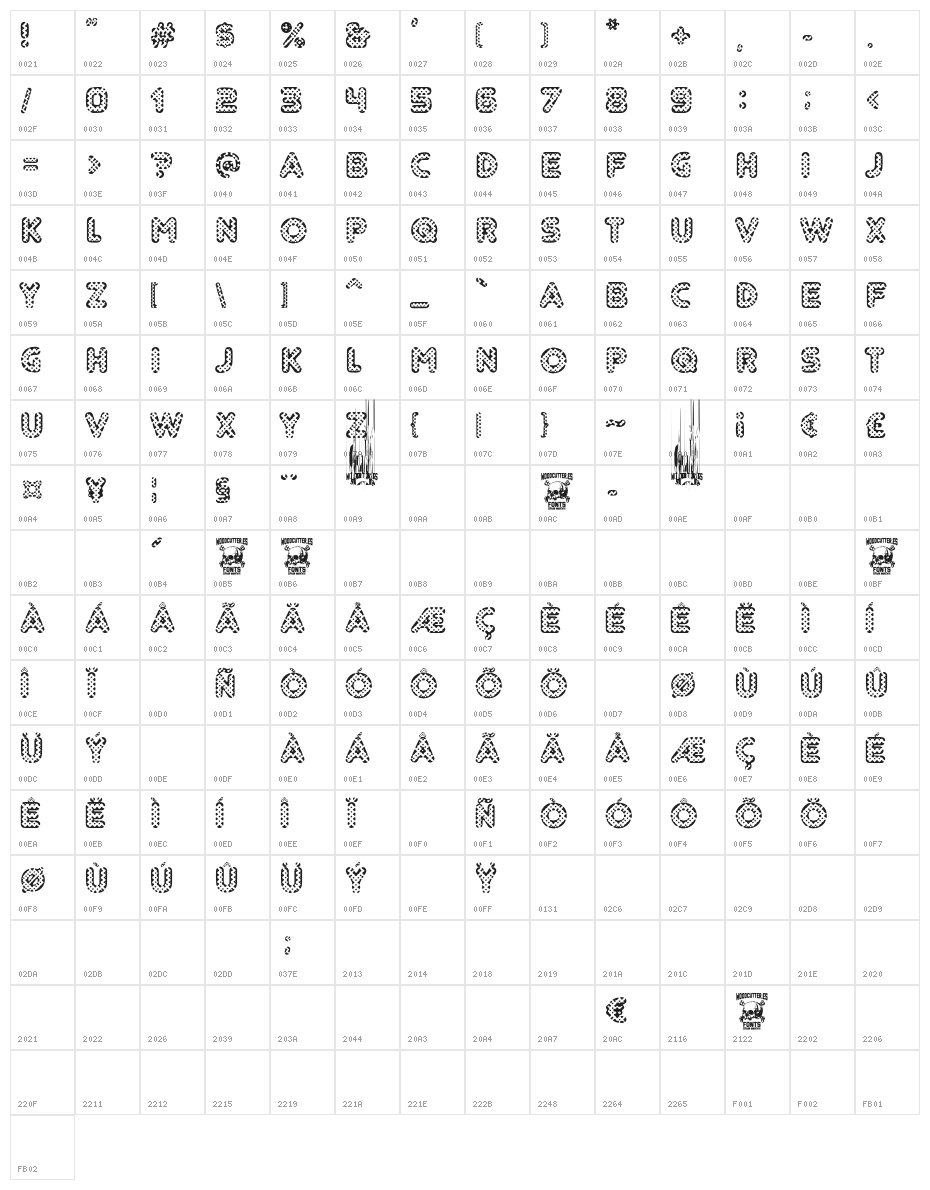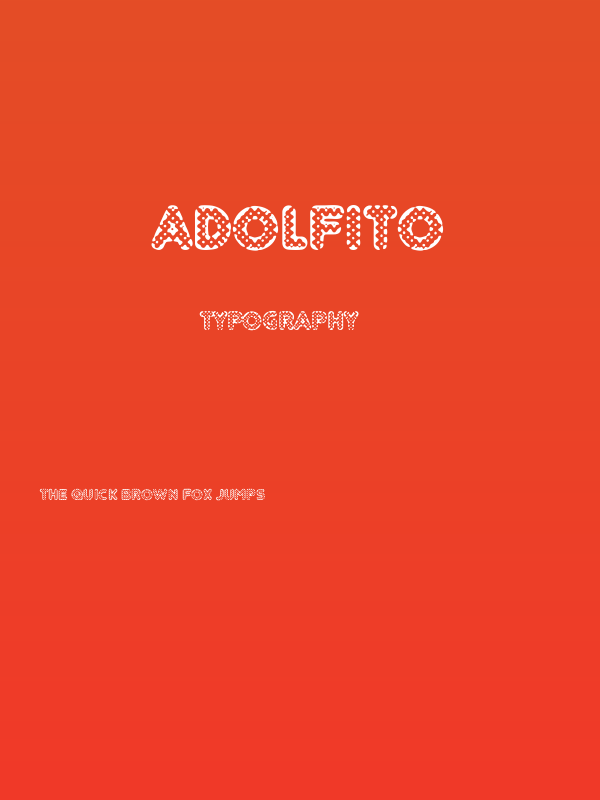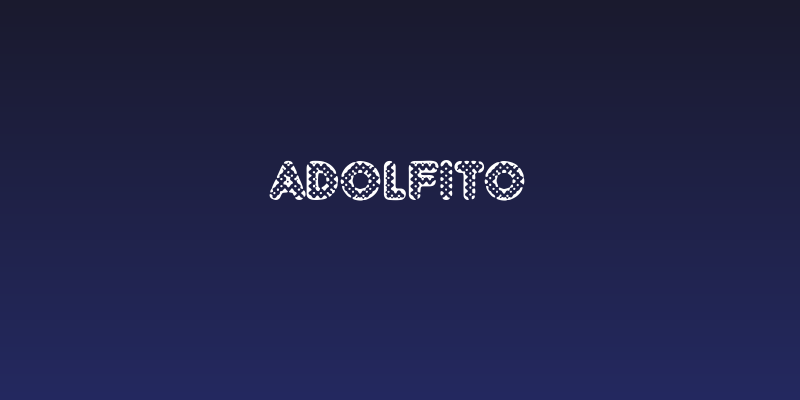
Adolfito Font
Adolfito Description
This font features a playful and bold design with a unique polka dot pattern filling each character. The letters are uppercase and lowercase, with numbers and a variety of special characters. The style is decorative, making it stand out with its dotted texture that adds a sense of fun and creativity. The characters are well-formed with consistent spacing, ensuring readability despite the intricate design. This font is ideal for projects that require a touch of whimsy and attention-grabbing aesthetics.
| Overall Style | Playful, Decorative |